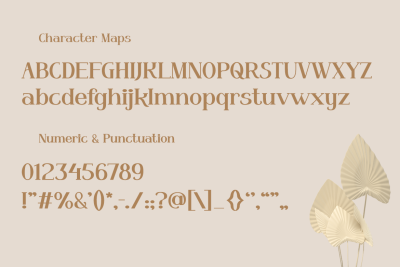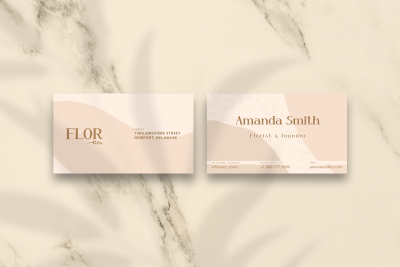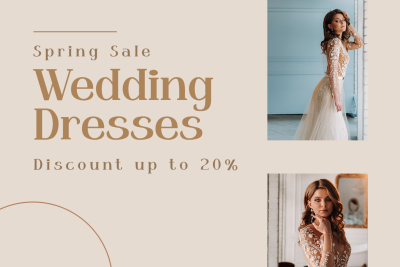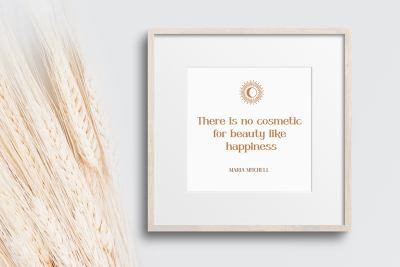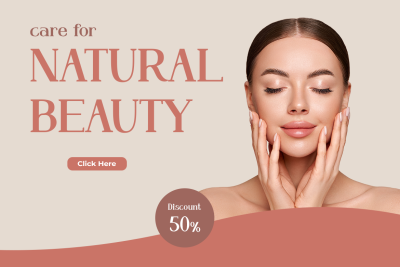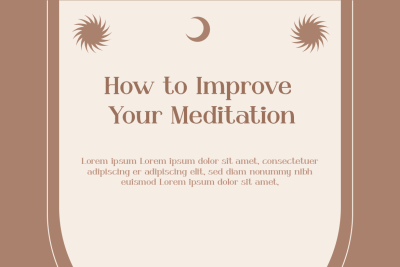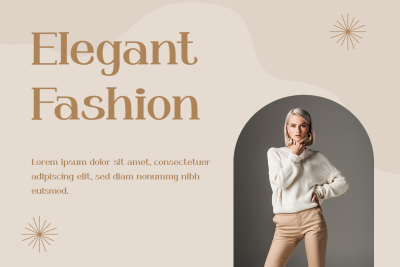
Instagram Font Kristal is a sophisticated and stylish typeface that effortlessly enhances your visual content. This modern, girly font masterfully combines elegant curves with refined details, making it the perfect choice for creating luxurious and captivating designs. Its smooth and balanced structure ensures readability while exuding femininity, charm, and a sense of sophistication. Furthermore, Kristal is inspired by popular social media trends, making it both versatile and distinct. As a result, it works beautifully for crafting eye-catching headlines, logos, captions, and branding elements.
In addition to its striking appearance, Instagram Font Kristal offers a timeless aesthetic that balances boldness and subtlety. The slight serif details lend a classic touch, while its clean and modern design keeps it trendy and fresh. Whether you are curating a cohesive Instagram feed or designing brand materials for a luxury product, Kristal adds sophistication and flair. Moreover, its graceful curves and polished finishes ensure that your designs stand out, making a lasting impression on your audience.
The fontโs versatility is another key feature. Kristal adapts well to various contexts, from social media graphics to printed marketing materials. Its ability to blend femininity with modernity makes it an excellent choice for creators looking to convey elegance, professionalism, and creativity. For anyone seeking to make their designs more engaging and visually appealing, Kristal offers unmatched charm and usability.
Instagram Font Kristal Suitable For
Instagram Font Kristal is ideal for designers, influencers, and brands striving for a polished and cohesive aesthetic. It is especially suitable for personal blogs, lifestyle brands, and fashion lines. Additionally, this font is perfect for businesses in beauty, wellness, or luxury industries, where elegance and modernity are essential.
For Instagram content creators, Kristal elevates posts, stories, and highlight covers with its chic design. Moreover, wedding planners and boutique businesses can rely on this font to create stunning invitations, logos, and promotional materials. Kristal is also an excellent choice for anyone managing social media campaigns, as its versatile style works seamlessly across digital and print mediums. Whether youโre a beginner or an experienced designer, Kristal ensures your projects exude professionalism and creativity. Its timeless appeal guarantees that your designs will resonate with your target audience, no matter the platform or purpose.
With Instagram Font Kristal, you can elevate your creative projects to new heights, turning ordinary designs into extraordinary works of art.